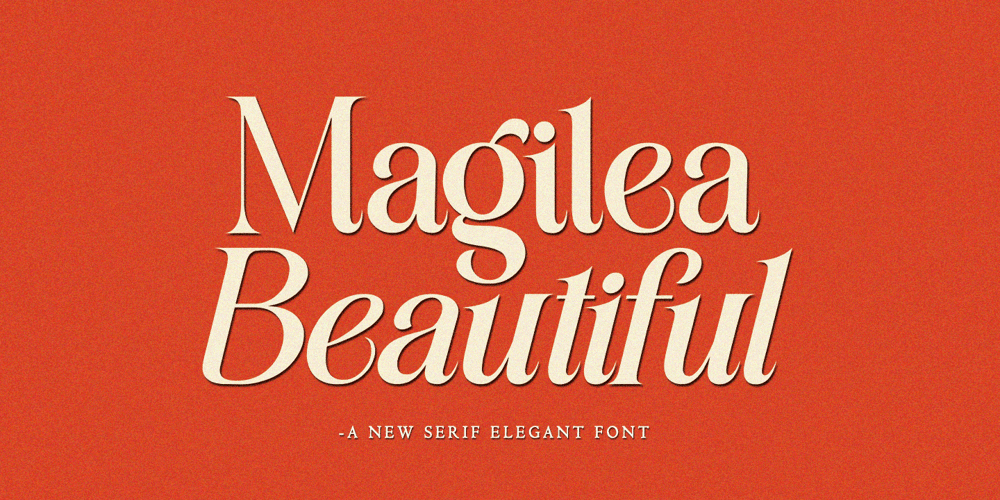
Magilea Beautiful Font Family was designed by Wahi Din and published by Gold Type. Magilea Beautiful contains 2 styles and family package options. Maligea Beautiful is my new elegant serif font that will give your projects a touch of luxury and style. It’s perfect for logotypes, branding, monograms and wedding invitations, blog headlines, and more. Browse through all the previews and get as inspired as I was when creating this font.-2 Type FontSupported Languages: Armenian, Baltic, Central/Eastern Europe, Cyrillic, Elymaic, English, Ethiopic, Georgian, Old Hungarian, Romanian, Southeast Asia, Western EuropePlease contact us if you have any questions, we are happy to help you!